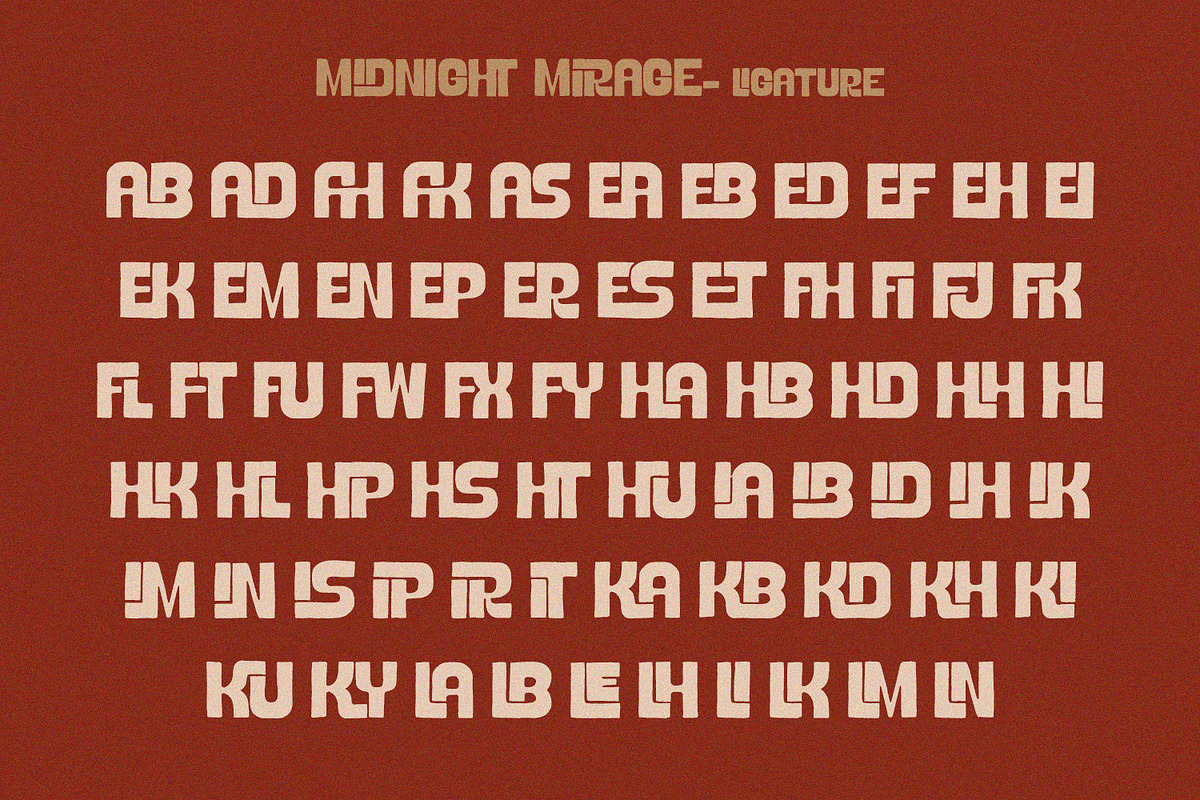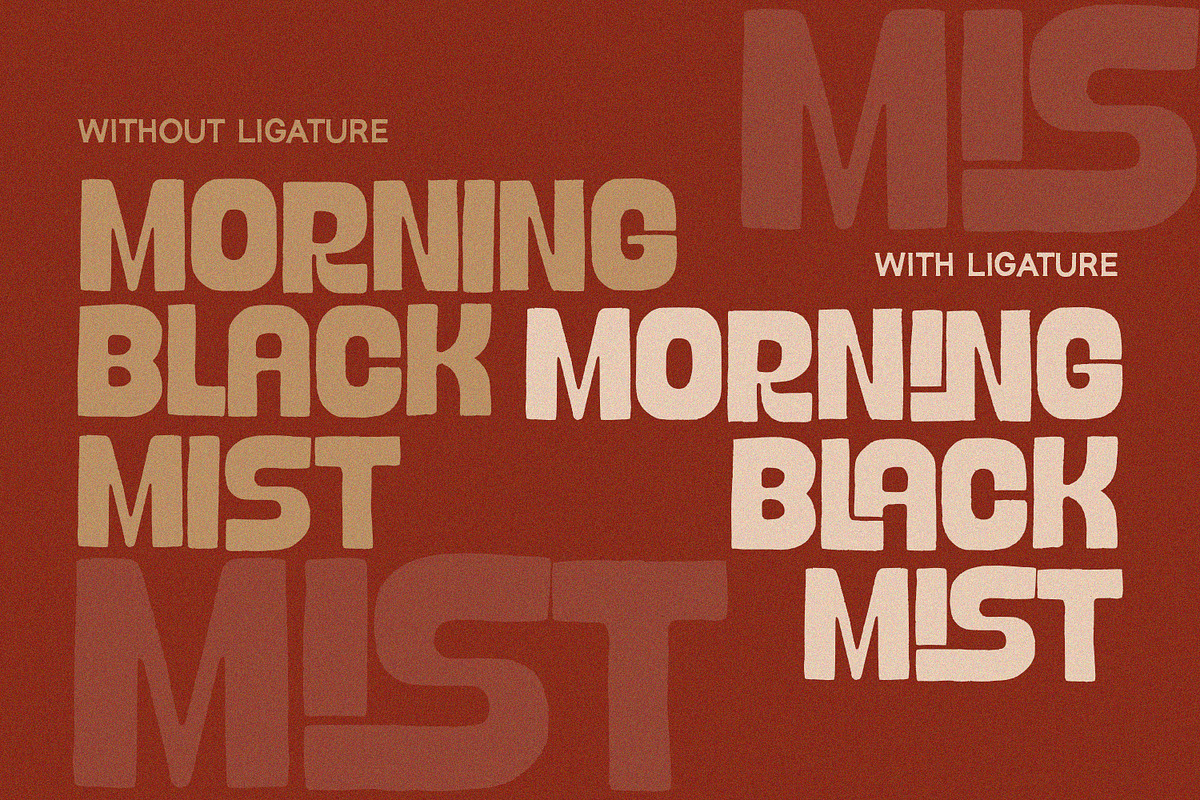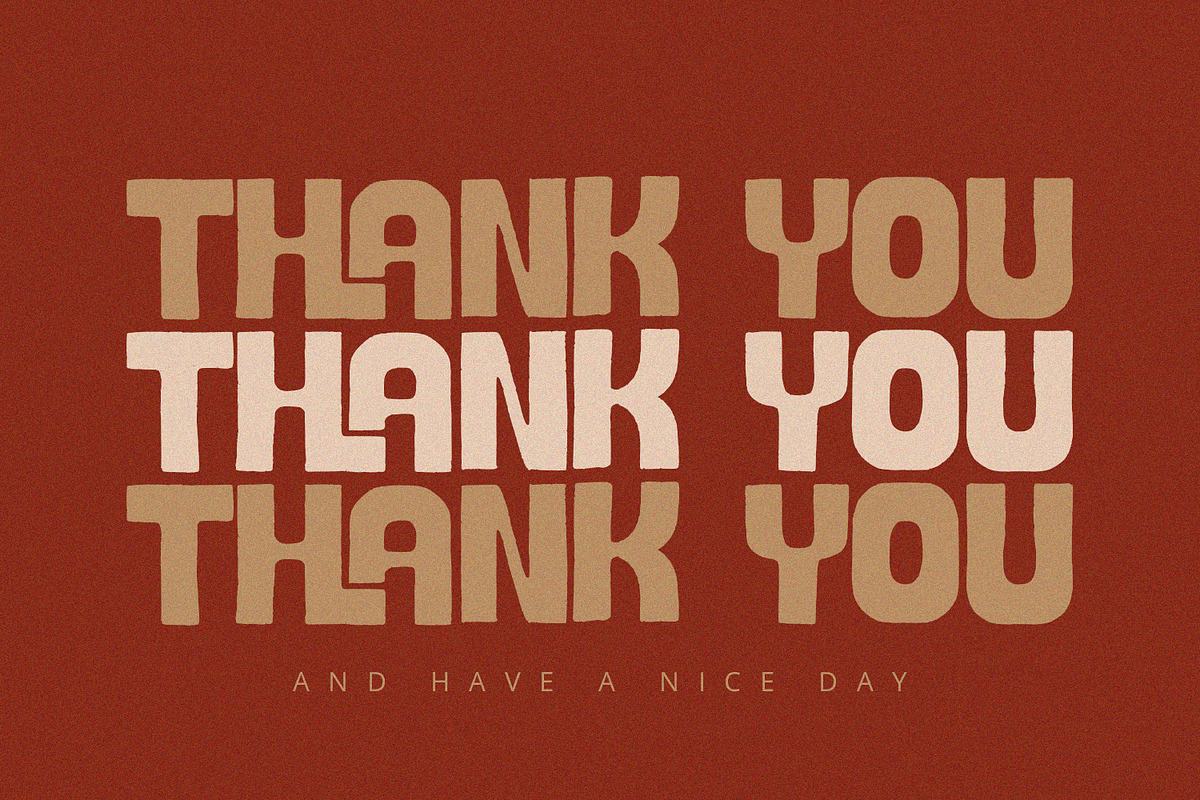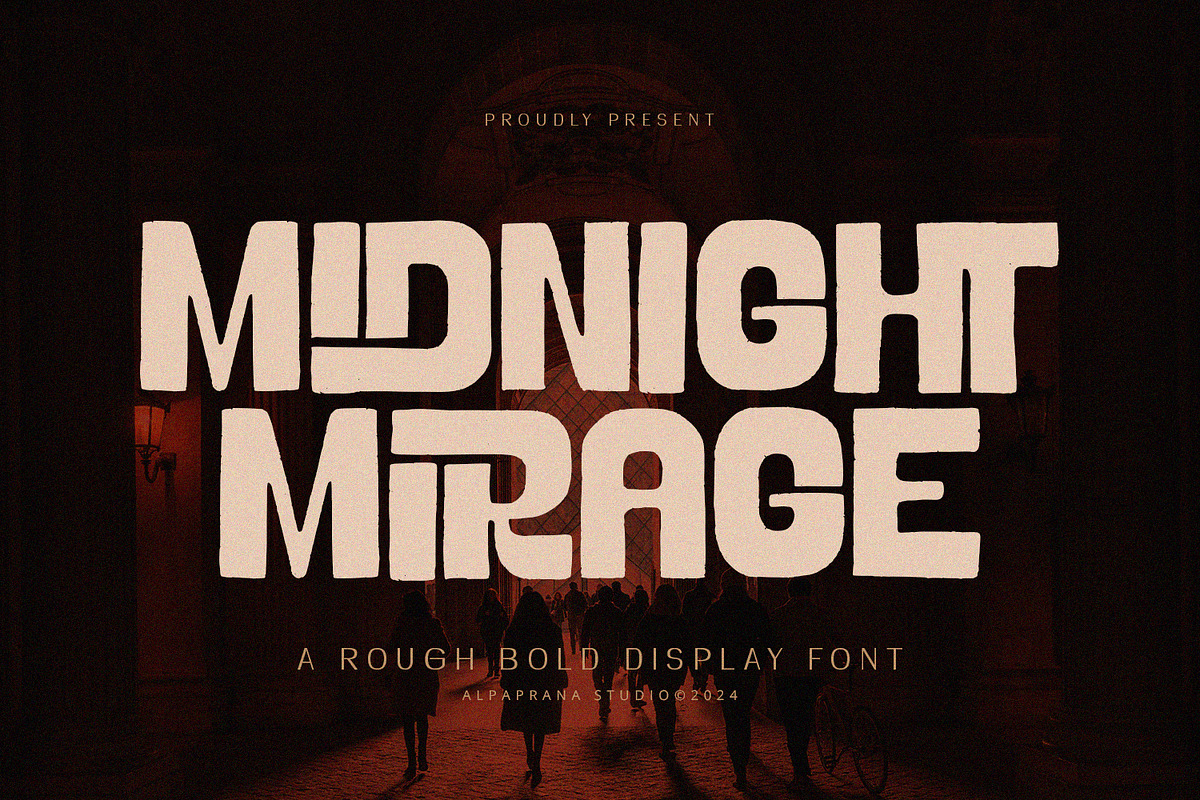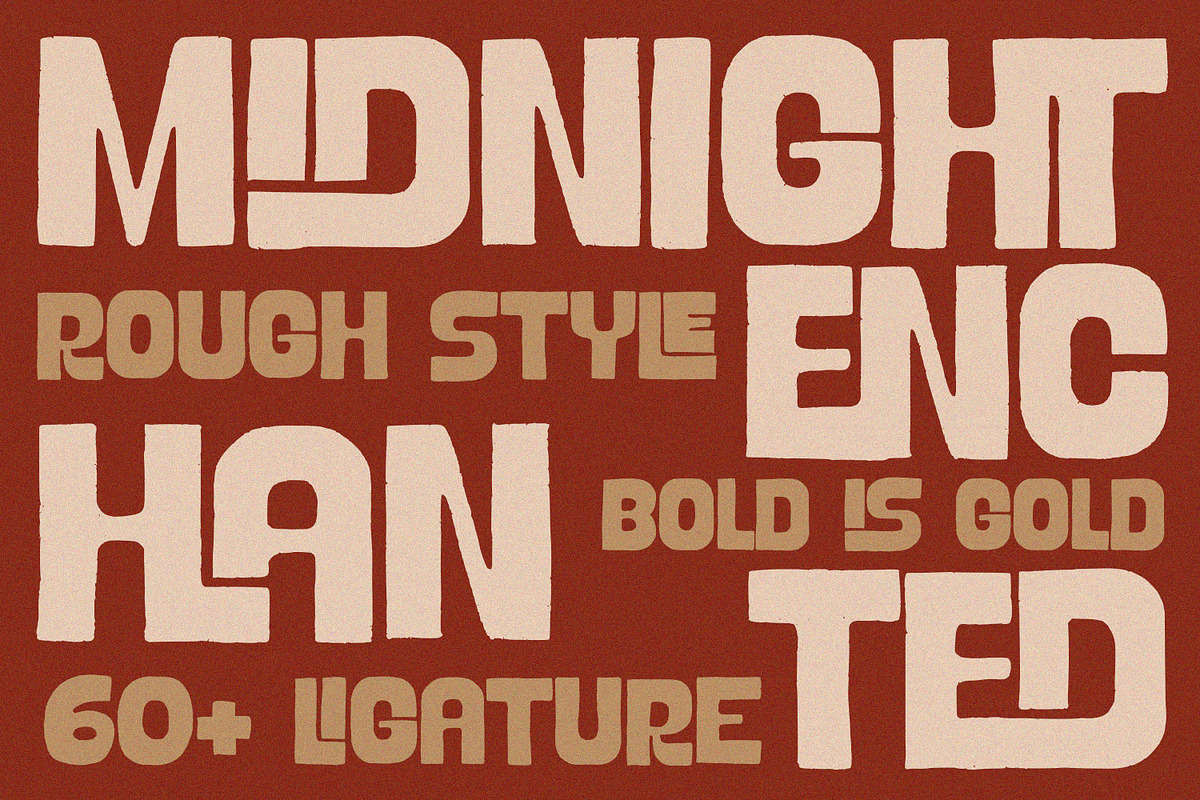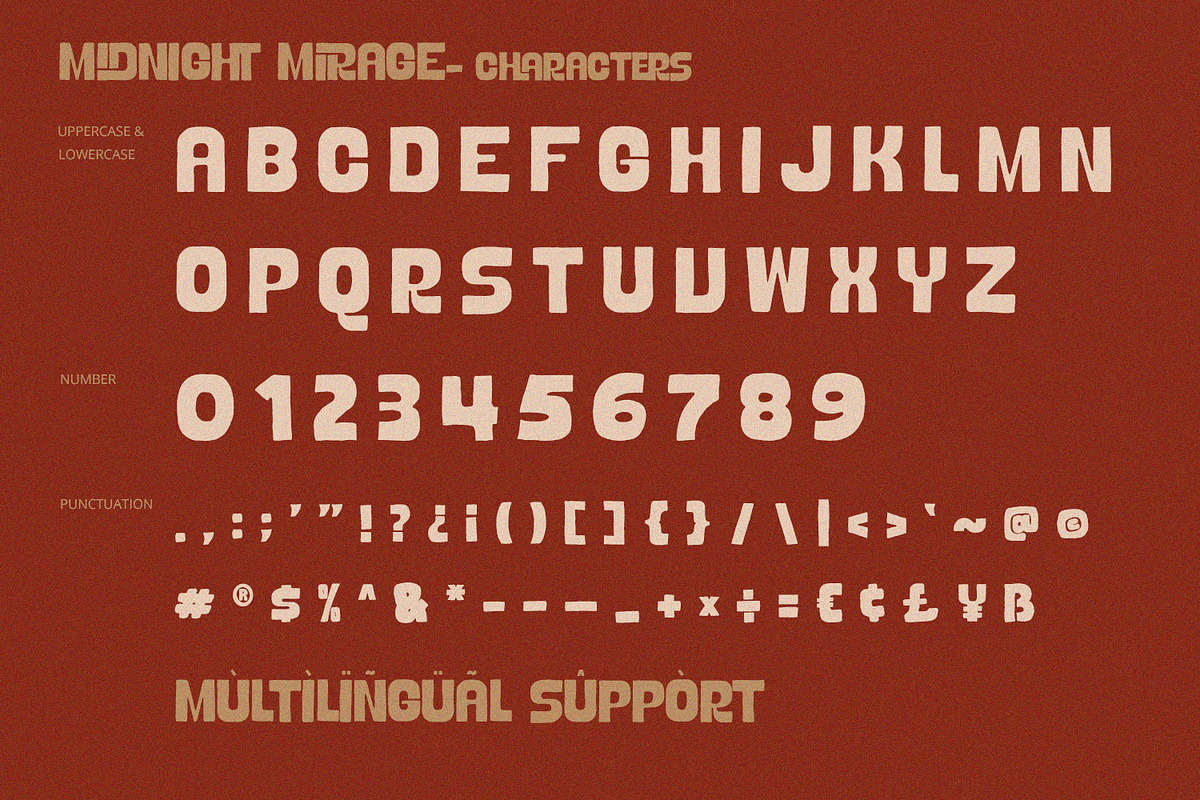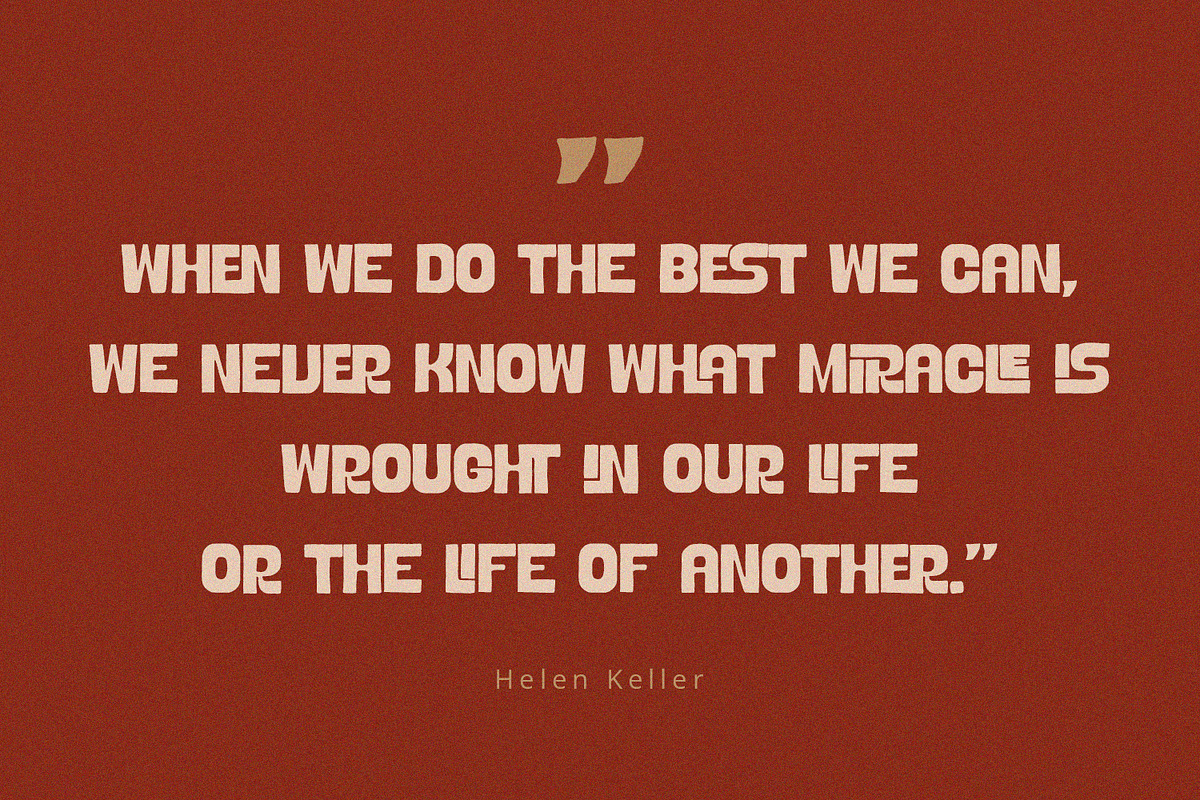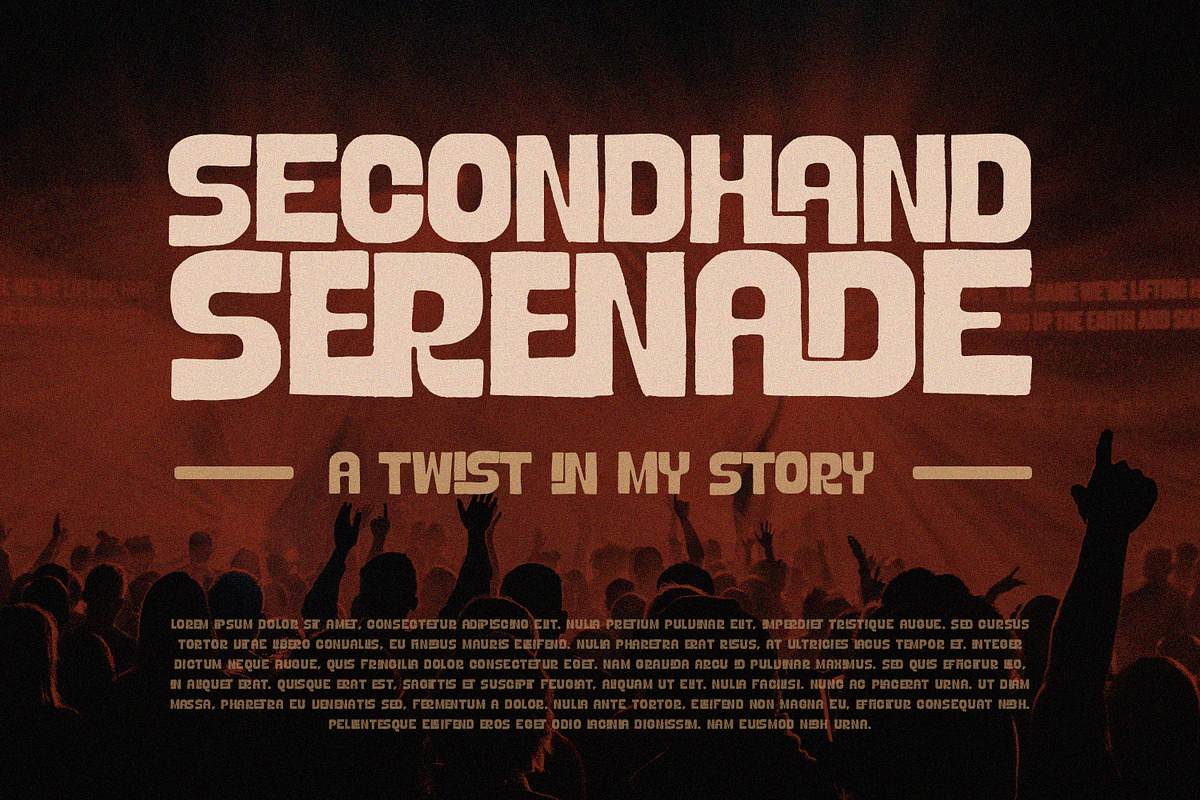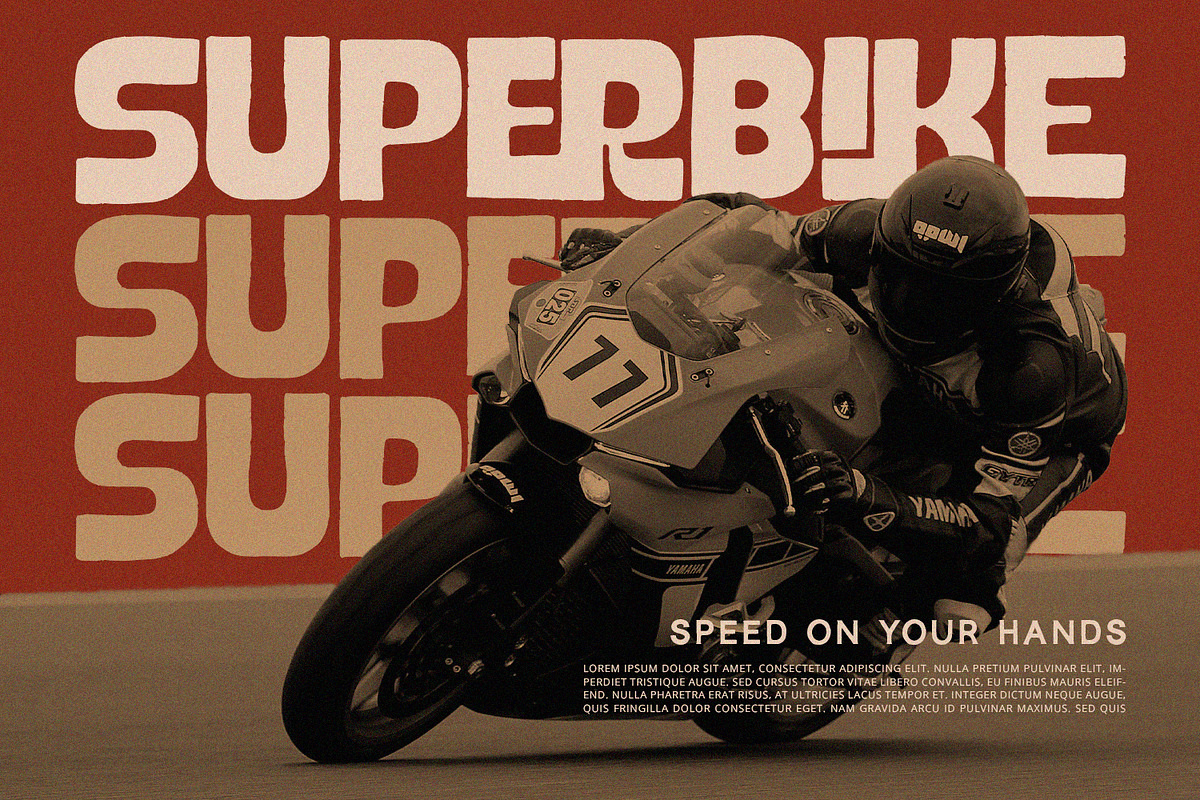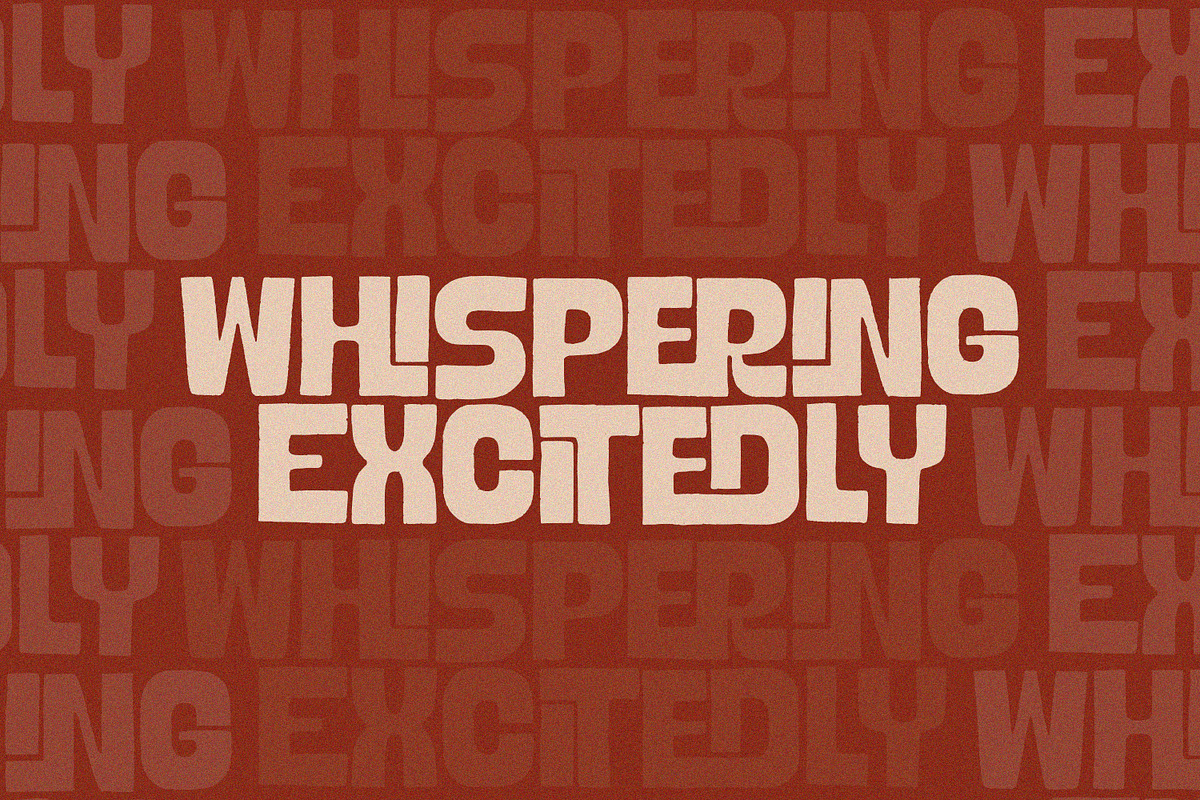
Midnight Mirage - Rough Display
Midnight Mirage is a rough display font with unique and classic feels. It will be perfectly used for Branding, Logo Design, Lettering, Logotype, Clothing, Poster, magazine, packaging, posters, shopping bags, t-shirts, book covers, photography, special events and other design project.